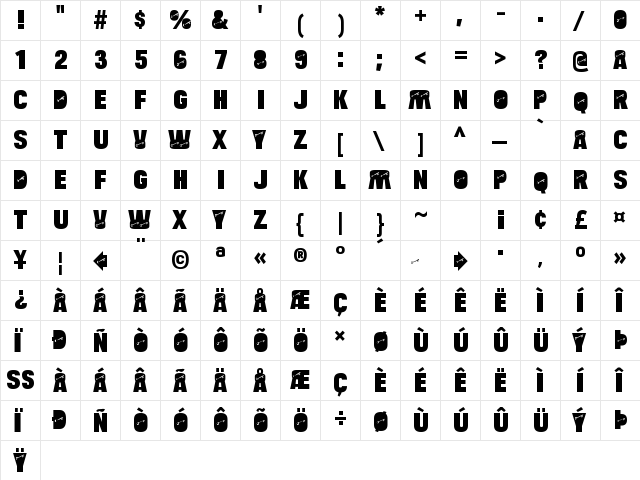
Bulltoad Key Regular
Design Context for Bulltoad Key Typeface
Bulltoad Key is a composed and adaptable typeface that performs quietly and consistently across a wide range of design contexts.